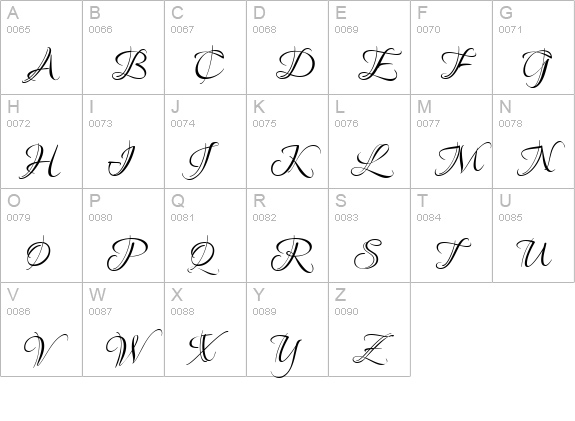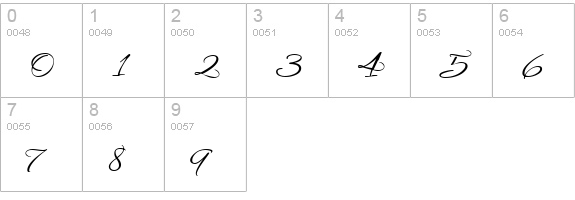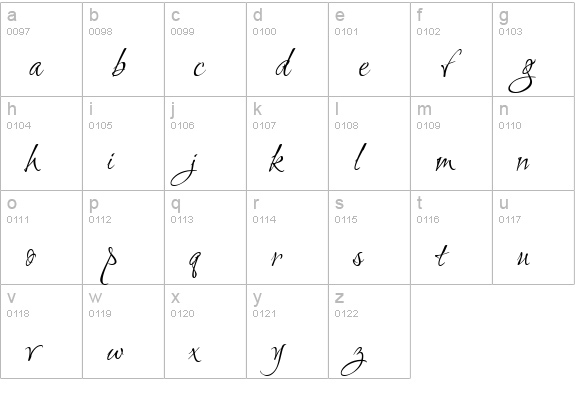
P22 Ruthie Font Details
P22 Ruthie font is a stunning and elegant typeface that effortlessly combines modern simplicity with a touch of traditional charm. This graceful font is perfect for adding a touch of sophistication to any project, whether it be invitations, logos, or branding materials. With its delicate and graceful curves, P22 Ruthie exudes a timeless beauty that captivates and engages the reader. Its flowing and organic letterforms create a sense of movement and fluidity, adding a touch of elegance to every word. One of the most remarkable aspects of P22 Ruthie font is that it is freely available to download at FontsMarket.com. This means that you can easily access and utilize this exquisite font without any cost or hassle. Whether you are a professional designer or a passionate enthusiast, P22 Ruthie font allows you to elevate your designs to new heights without breaking the bank. The versatility of P22 Ruthie font is another aspect that sets it apart. It effortlessly adapts to any design style, from classic and timeless to contemporary and modern. Its well-balanced proportions ensure legibility at any size, making it suitable for both display and body text. Furthermore, P22 Ruthie font is equipped with a wide range of glyphs and ligatures, providing endless possibilities for creative typography. Its extensive character set includes uppercase and lowercase letters, numbers, punctuation marks, and special characters. When it comes to the technical aspects, P22 Ruthie font is designed with precision and attention to detail. It is available in multiple file formats, including TrueType and OpenType, ensuring compatibility with various design software and operating systems. In conclusion, P22 Ruthie font is a beautiful and versatile typeface that effortlessly combines elegance and simplicity. Its availability as a free download at FontsMarket.com makes it accessible to designers and enthusiasts alike. Whether you are working on a personal project or a professional endeavor, P22 Ruthie font is the perfect choice to add a touch of sophistication and grace to your designs.